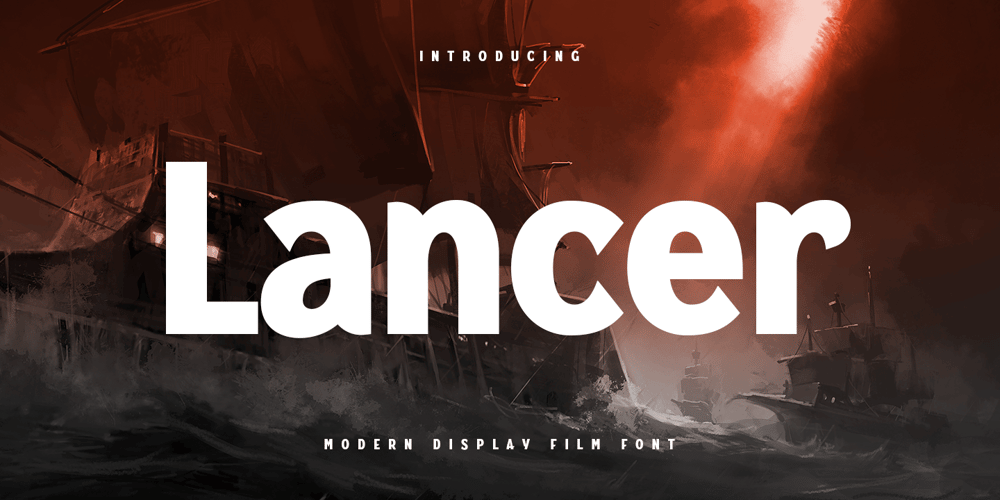
Lancer
Lancer font
Lancer Font Family was designed by Zamroni Hamzah and published by Sensatype Studio. Lancer contains 1 styles and family package options. Lancer Modern Display Film Font is a A Modern Display Film Font are prepared special for Film, Logo, Action, Bold, and Sport design needs. It’s so perfect to add your style and headline overview for film, horror, actions, and fighting theme. And specially for this font, we crafted for bold action style and modern feels so enjoy to create any project that will show your main idea out.Lancer Modern Display Film Font ready with: Creative characters prepared to get best results 4 files format already Preview as a inspirations that you can do with Lancer font Ready with All Uppercase characters Wish you enjoy our font. 🙂